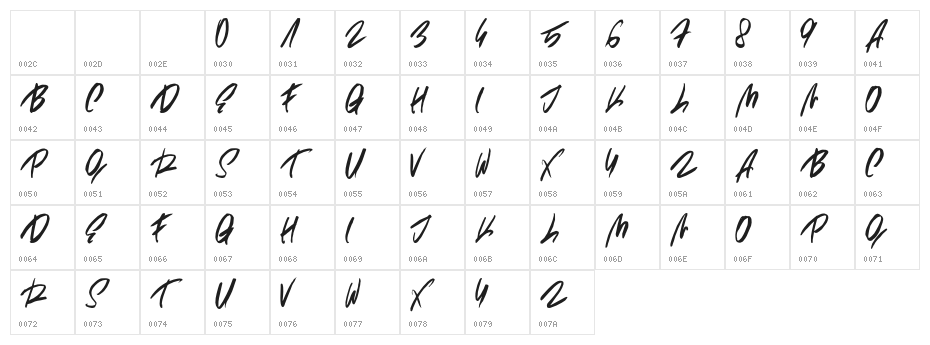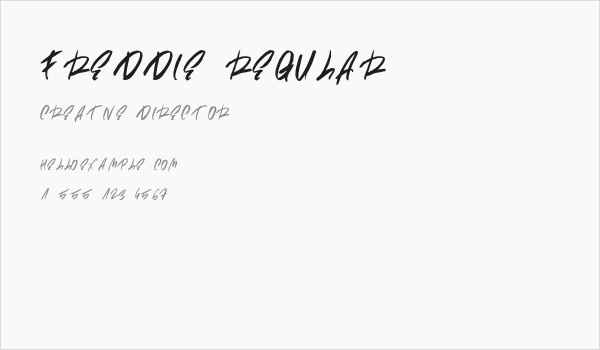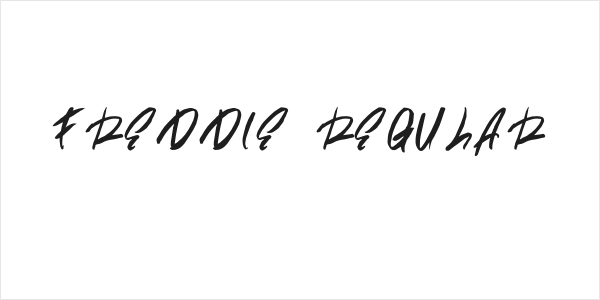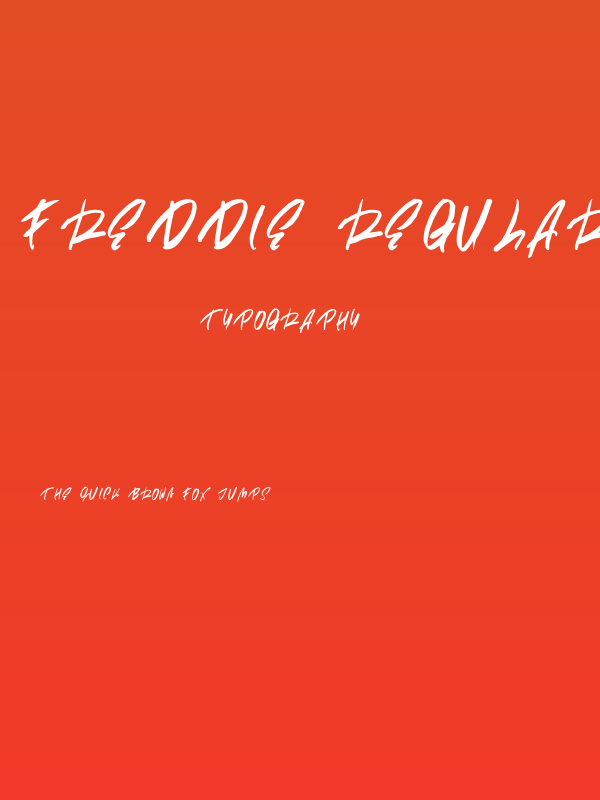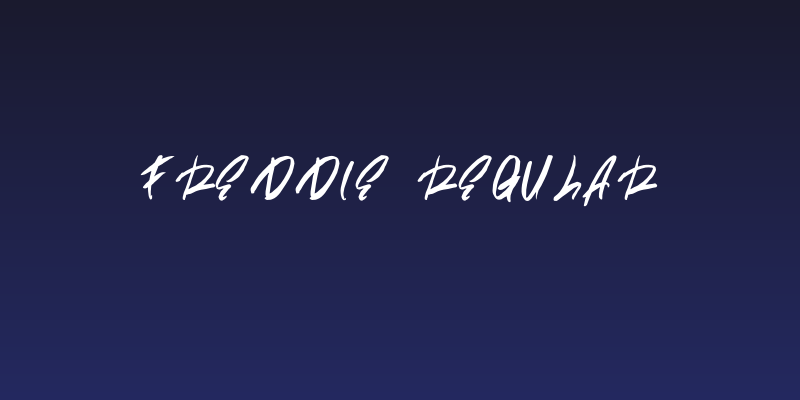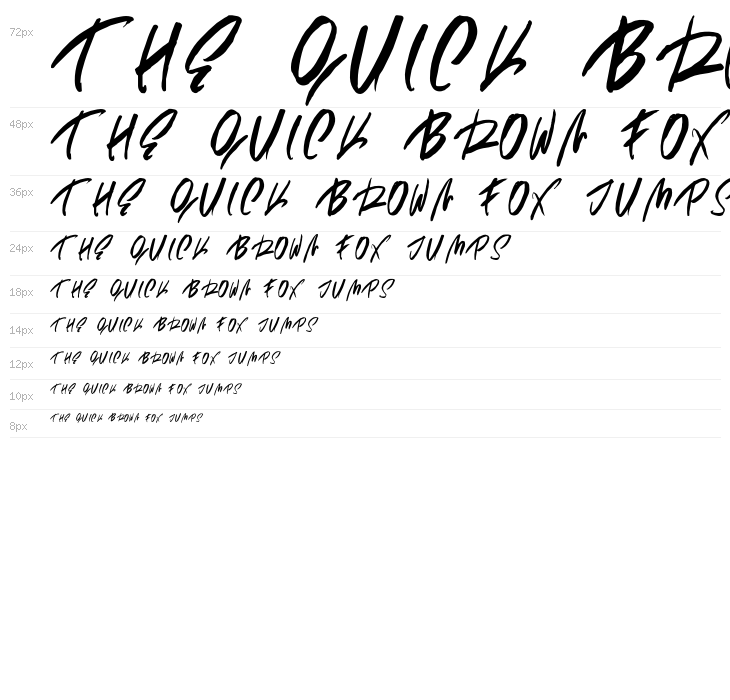
Freddie Regular Font
Freddie Regular Description
This font exudes a dynamic and energetic feel with its bold, brush-like strokes that mimic the fluidity of handwriting. The characters are slightly slanted, adding a sense of movement and spontaneity. The uppercase and lowercase letters maintain a consistent style, with a playful yet sophisticated appearance. The numbers and special characters follow the same expressive design, making the font versatile for various creative applications. Its bold presence makes it ideal for capturing attention while maintaining readability.
| Proposed Projects | Ideal for branding, posters, invitations, and any project requiring a personal, artistic touch. |